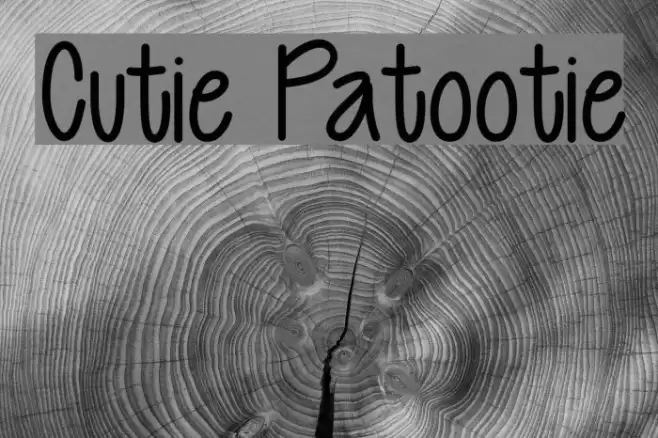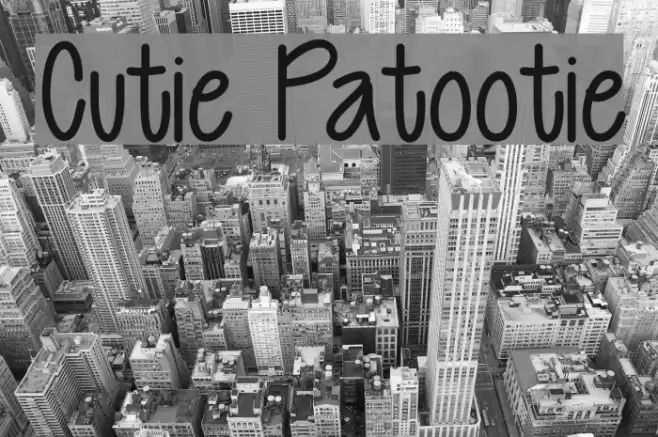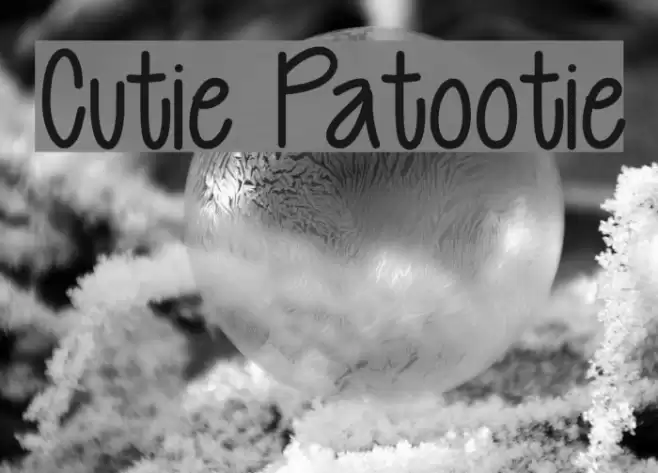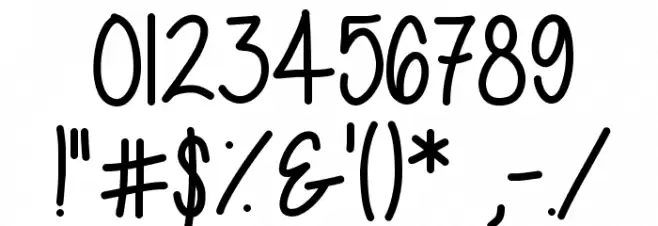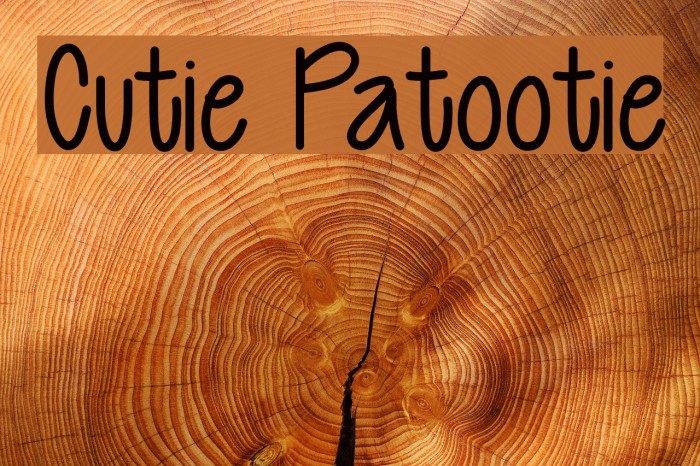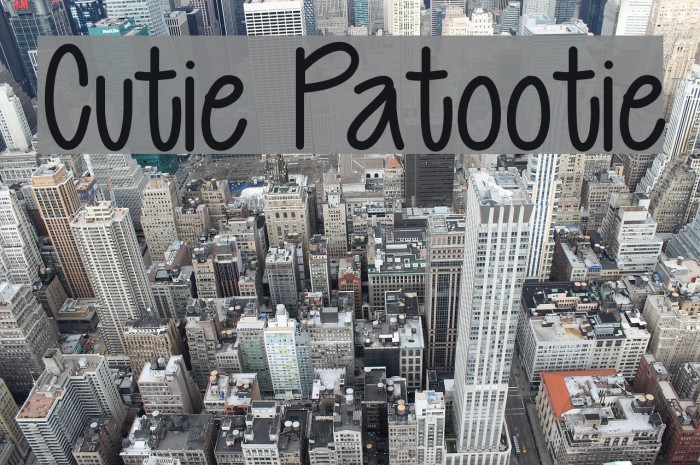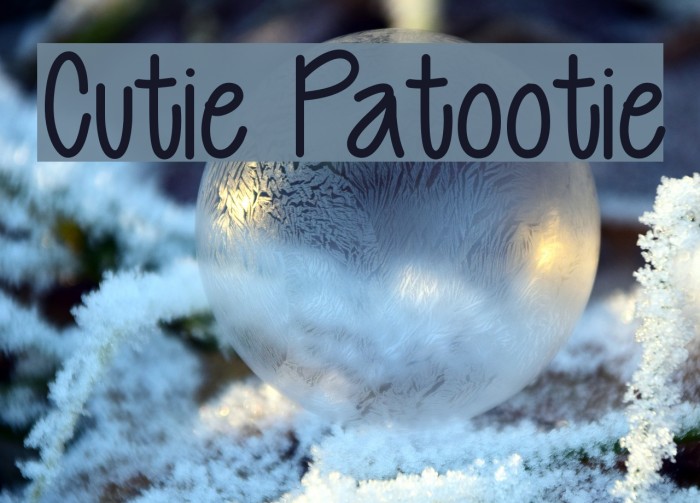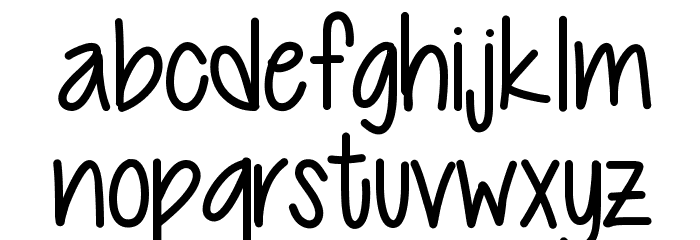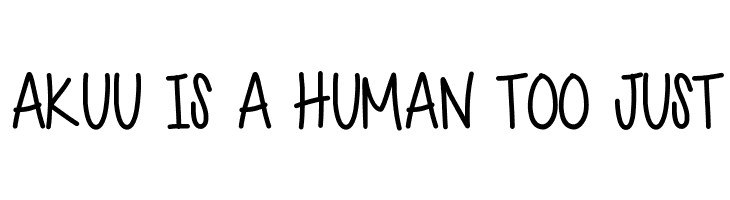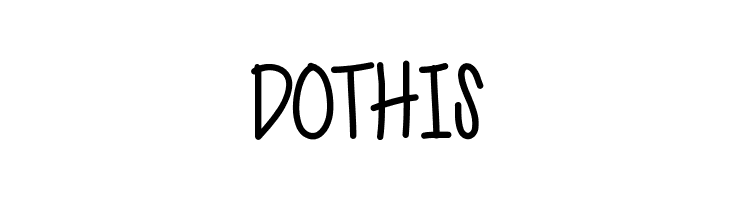
Cutie Patootie Font
Cutie Patootie Description
This playful and whimsical font features a handwritten style with a casual and friendly appearance. The letters are slightly irregular, adding a personal touch to the text. The strokes are consistent in width, giving it a uniform look while maintaining a sense of spontaneity. The font includes both uppercase and lowercase letters, numbers, and a variety of special characters, making it versatile for different uses. Its informal style is perfect for projects that require a fun and approachable feel.
A playful, handwritten font with a casual and friendly style from Uncategorized fonts.
- Proposed Projects: Ideal for greeting cards, children's books, playful branding, and social media graphics.
- Overall Style: Casual
- Use Case: Headlines, Informal text, Creative projects